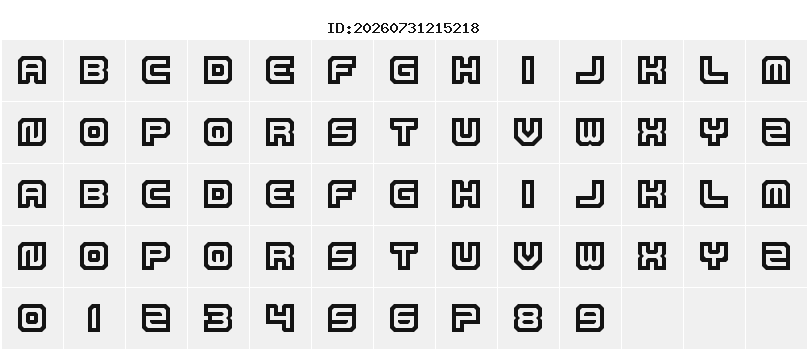
• Font Name: Lay Of The Land
• Full Font Name: Lay Of The Land Regular
• Designer: Andrew McCluskey
• Description: ‚ÄúLay Of The Land‚Äù was built with FontStruct
About Lay Of The Land.ttf
Lay Of The Land.ttf is a modern, elegant sans-serif font designed for ultimate readability and visual harmony. Perfect for branding, headlines, web design, and print materials.